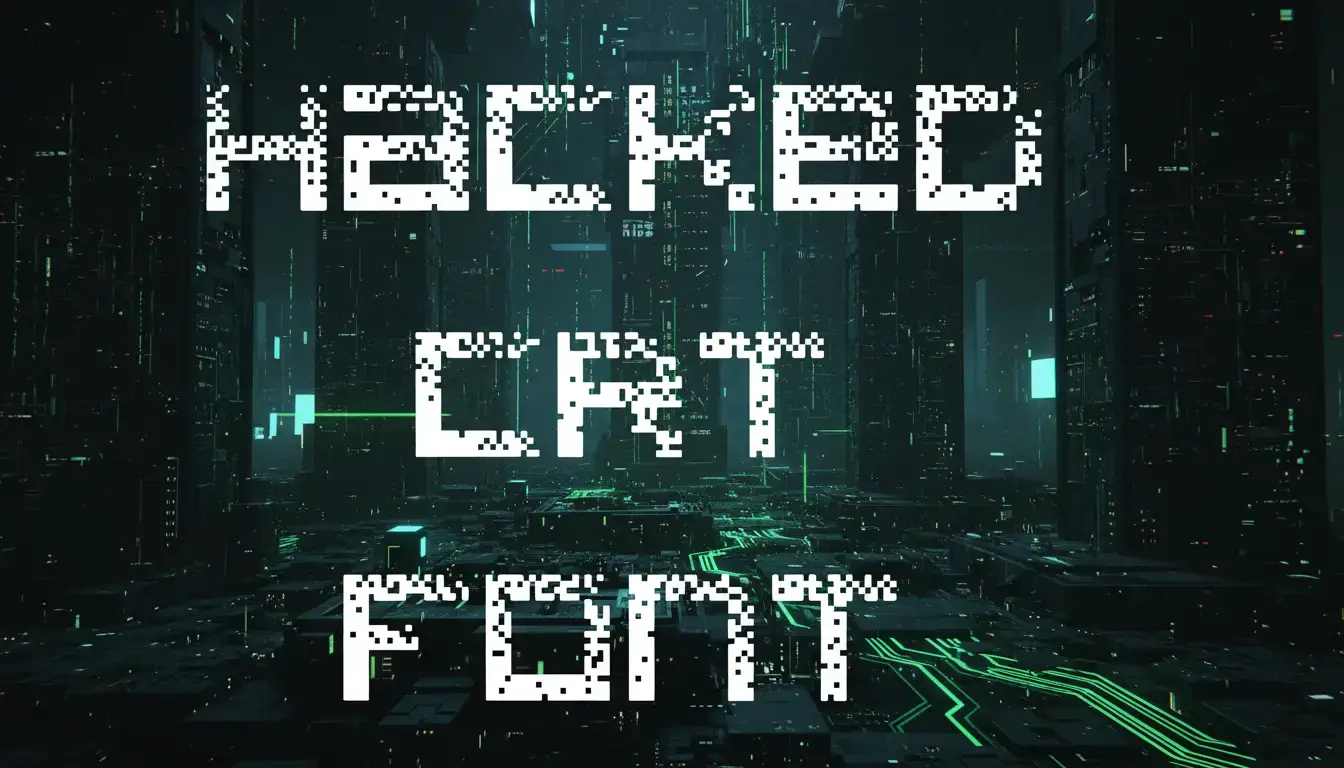
Hacked CRT Font
Hacked CRT Font Preview
Hacked CRT
Hacked CRT Character Map
Hacked CRT is a techno font made by axel295. Its angular, engineered shapes look right at home on screens and tech products. You can download it for free and test it with your own words in the preview above.
What You Can Type With Hacked CRT
You get every letter from A to Z in both cases and all the numbers from 0 to 9, which means Hacked CRT can handle full sentences, dates and prices. Common punctuation such as &, !, ? and @ is included as well. It also has the accented letters you need for Spanish, French, Portuguese and Italian.
Where Hacked CRT Works Best
Think of Hacked CRT for gaming logos, tech branding and futuristic posters. Try it on a dark background with a bright accent color for a sharp, modern look.
Does Hacked CRT support accented letters?
Yes. Hacked CRT includes the accented letters needed for Spanish, French, Portuguese and Italian, so it works for more than just English.
What fonts pair well with Hacked CRT?
A simple sans serif like Roboto keeps longer text easy to read next to it.